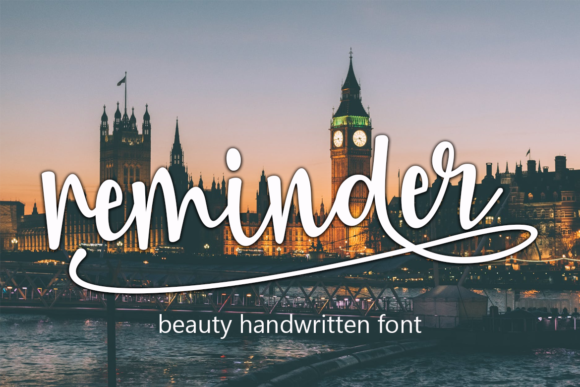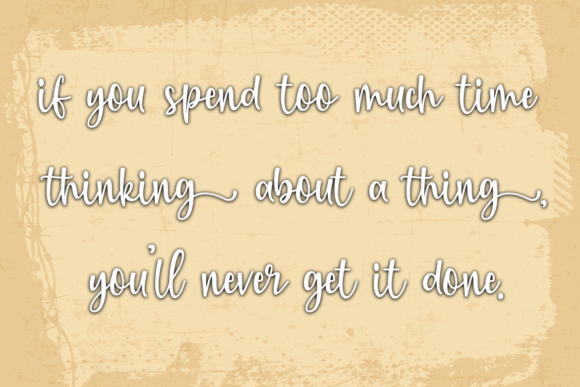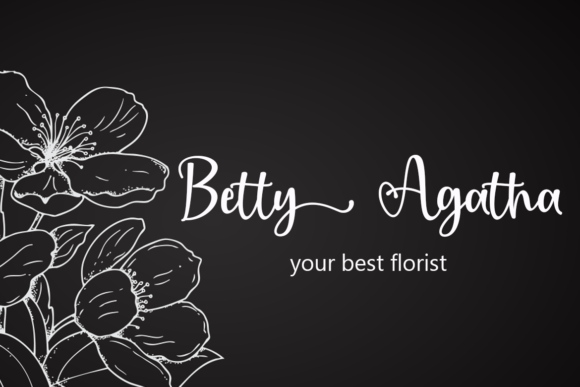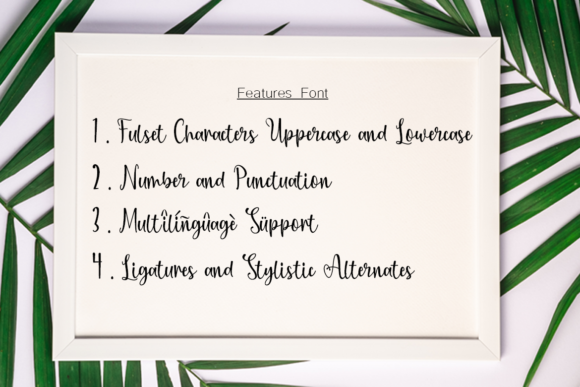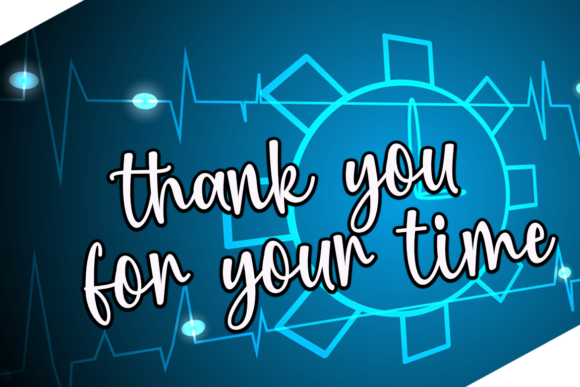
Reminder is a charming and flowing handwritten font that adds a friendly and natural touch to your designs. With its smooth and graceful letterforms, Reminder brings a sense of authenticity and warmth to your projects, making your ideas come alive with a touch of realism.
The fluidity of Reminder’s strokes gives the font a natural and organic feel, as if each letter was written by hand with a pen or brush. This creates a sense of familiarity and approachability, making it a great choice for designs that aim to connect with the viewer on a personal level.
Whether you’re designing greeting cards, social media graphics, logos, or any other visual content, Reminder adds a touch of friendliness and warmth to your messages. Its flowing and balanced characters create a harmonious rhythm that is pleasing to the eye and enhances the overall visual appeal of your designs.
Reminder is designed to be versatile and adaptable to different design contexts. Its legible and well-balanced letterforms ensure that your messages are clear and easy to read, while its handwritten style adds a unique and personal touch. This makes Reminder suitable for a wide range of projects, from casual and playful designs to more professional and refined aesthetics.
With Reminder, you have access to a variety of glyphs and swashes, thanks to its PUA encoding. This allows you to easily access and incorporate decorative elements and alternative letterforms into your designs, adding further customization and flair to your creations.
Whether you’re a designer, artist, or hobbyist, Reminder is a font that will elevate your ideas and bring them to life with its friendly and flowing style. It allows you to create visually stunning and engaging designs that capture the attention and hearts of your audience.
Embrace the natural and friendly qualities of Reminder in your next design project and watch as it enhances your ideas and brings them to life. Let this font be your reminder to infuse your designs with authenticity, warmth, and a touch of handcrafted charm.